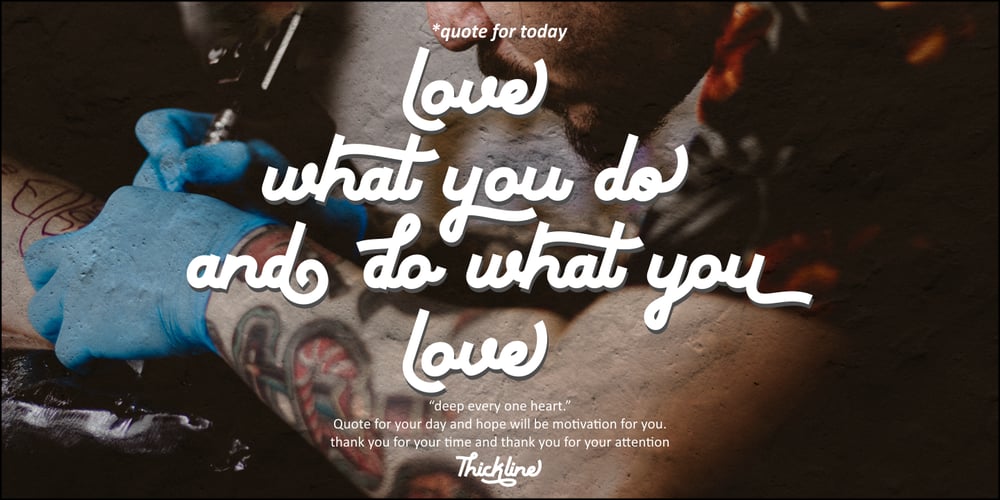
Thickline Font Family was designed by Putra Novembria Candra Kusuma and published by Putracetol. Thickline contains 1 styles and family package options. Introducing Thickline, a classic bold monoline typeface. Thickline is bold, strong, and classy. You can use this font for making awesome logos, branding, letterhead, invitations, quote, print, card clothing brand, vintage looks, and so much more!. Comes with open type feature and a lot of alternates that helps you to make great lettering. This font also has multi language support.